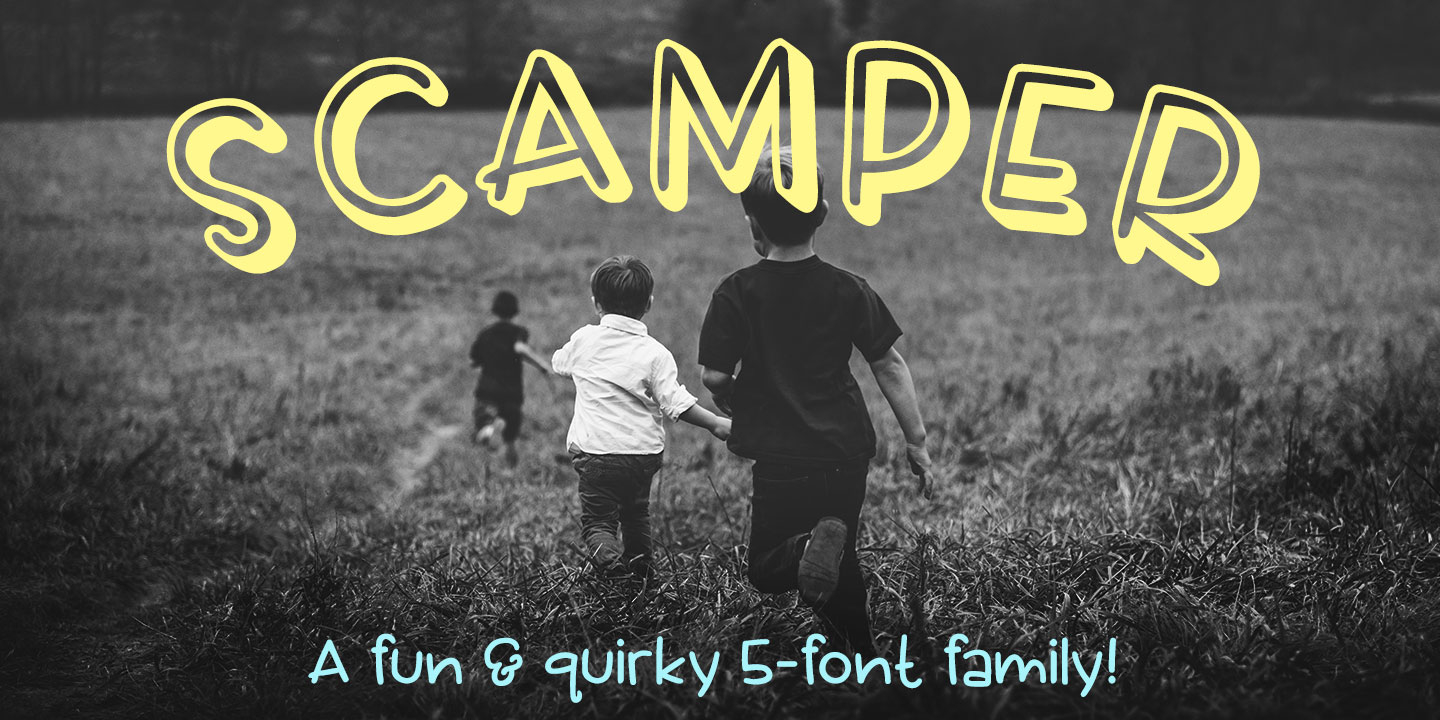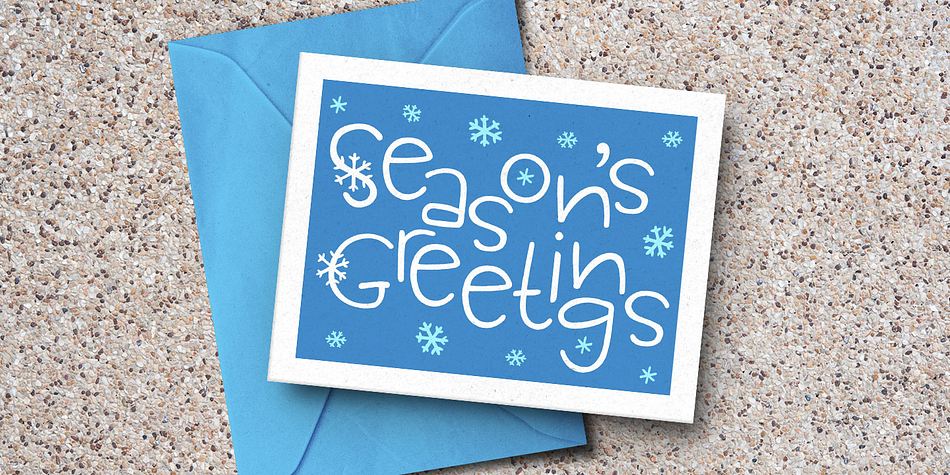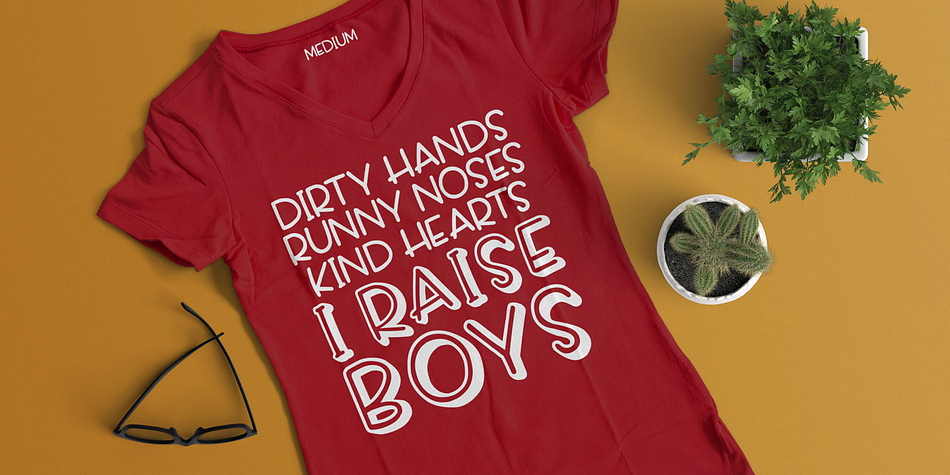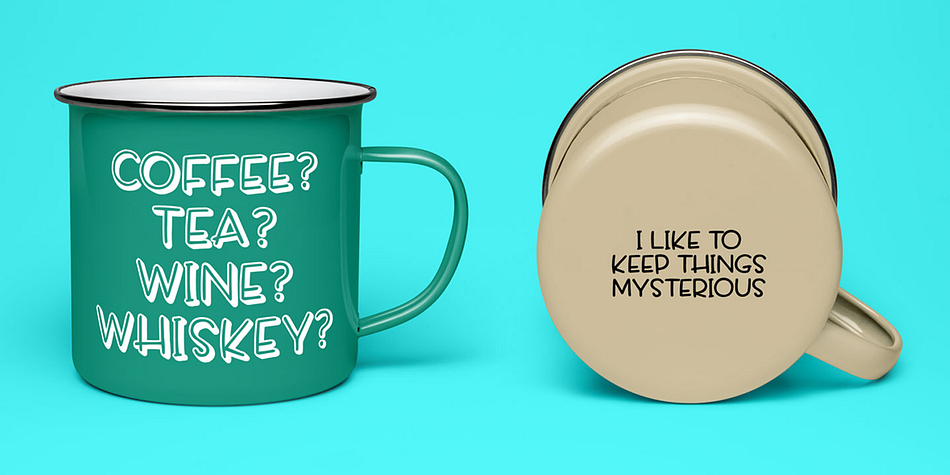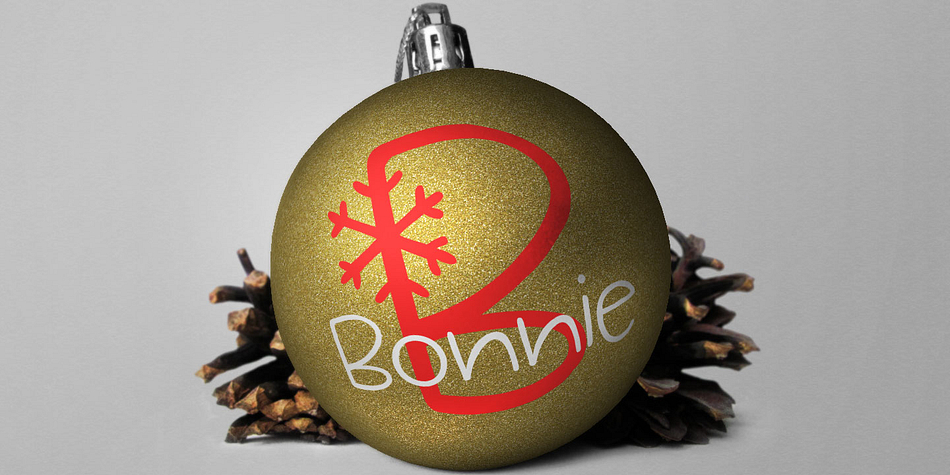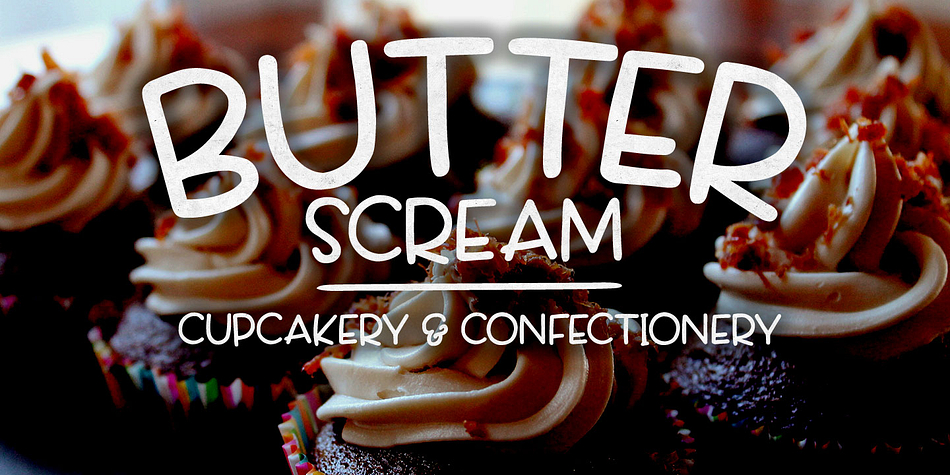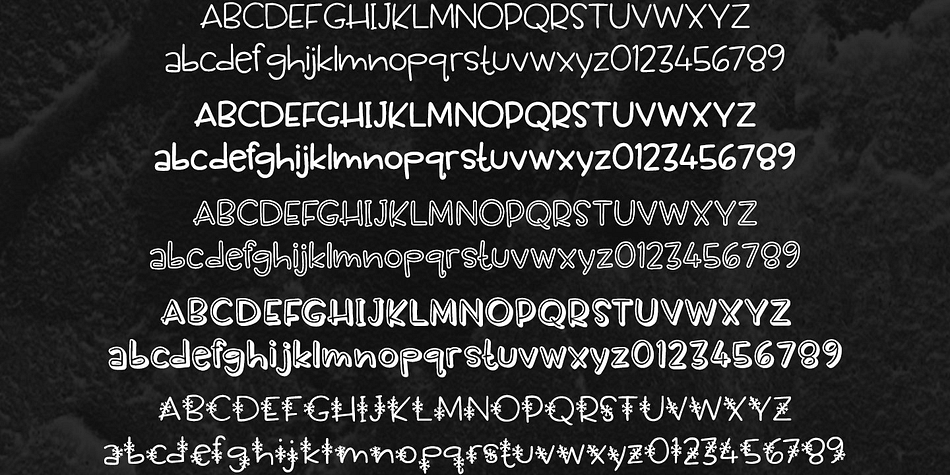
Designed by Missy Meyer, Scamper is a hand drawn and hand display font family. This typeface has five styles and was published by Missy Meyer.
Scamper started out its life as a free winter font, with snowflakes in all of the letters. But I ended up loving the snow-less letters so much, I made some different versions!
Scamper now comes in 5 different styles: regular, heavy, outline, 3D, and of course, the original snowy version. But even those early free versions have been edited, cleaned up, and expanded with over 300 accented characters in each version for language support. The letters have been smoothed, but still keep some of that hand-crafted wobble that makes them so fun.
Now Scamper isn’t just for wintertime—it’s a handy, fun, and cute handwritten font that’s good any time of year!
Each Scamper font includes:
- uppercase A-Z, lowercase a-z, numbers 0-9, and tons of punctuation
- over 300 accented characters for language support